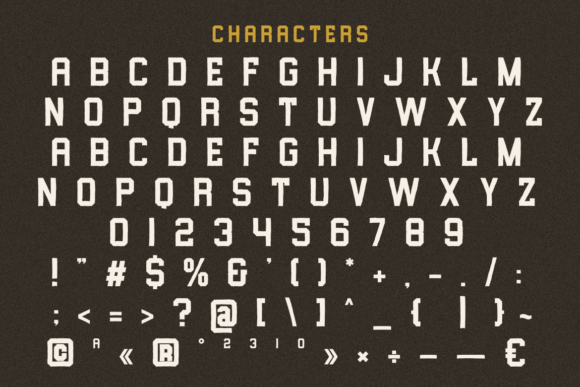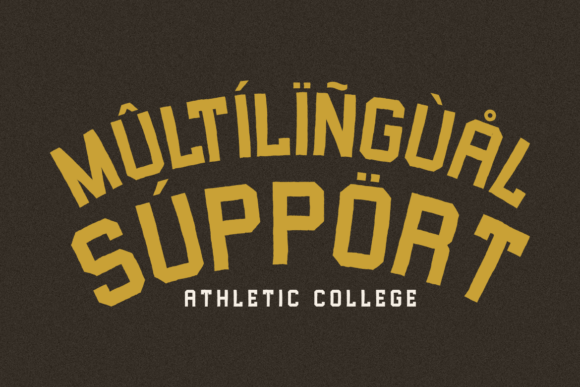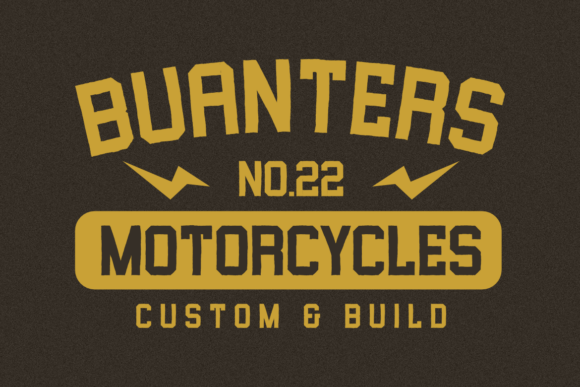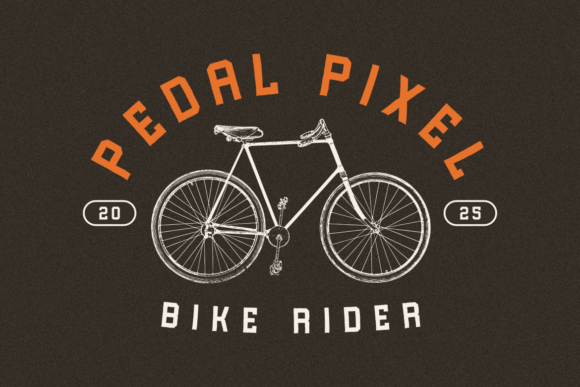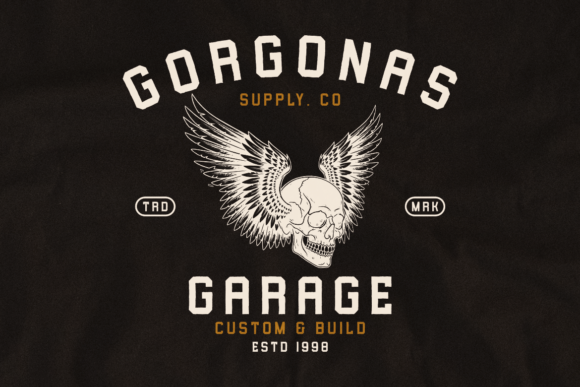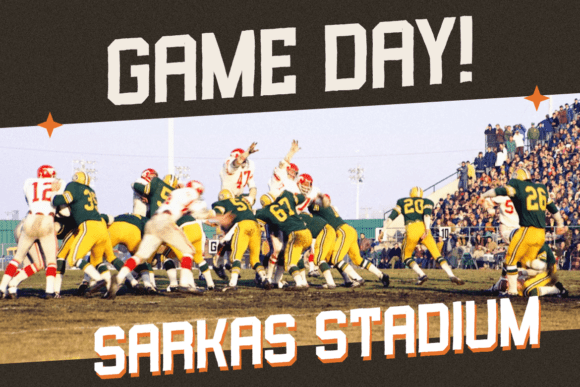
Athletic College Font: Unleash the Power of Vintage Sports Typography
In the world of sports design, typography plays a crucial role in conveying the energy, spirit, and nostalgia associated with athletic teams and events. For designers and crafters seeking to create authentic, vintage-inspired sports-related designs, the Athletic College font is an excellent choice. This robust rough sport font boasts a distinct vintage aesthetic, making it perfect for a wide range of applications, from team merchandise and event posters to retro-inspired logos and more.
The Distinctive Characteristics of Athletic College Font
Athletic College font is characterized by its sturdy, weathered texture and bold presence. The typeface’s rough, worn appearance gives it a timeless, classic feel reminiscent of traditional athletic department logos and collegiate branding. This font’s unique texture and distressed look evoke a sense of nostalgia, transporting designers and their audiences back to a bygone era of sports history.
Key Features and Benefits of Athletic College Font
- Robust and Energetic Design: Athletic College font exudes a powerful and energetic feel, making it perfect for designs that require a strong, dynamic presence.
- Vintage Aesthetic: The font’s vintage-inspired design and distressed texture give it a unique, authentic look that’s ideal for retro-themed sports designs.
- Versatility: Athletic College font is suitable for a wide range of applications, including team merchandise, event posters, logos, and any project requiring a bold, sporty vibe.
- Easy to Read: Despite its distressed texture, the font remains highly legible, ensuring that your designs are both stylish and functional.
Design Applications for Athletic College Font
Athletic College font is incredibly versatile, making it suitable for various design projects. Here are some ideas to get you started:
- Team Merchandise: Create eye-catching apparel, such as t-shirts, hoodies, and hats, with the Athletic College font to give your team’s branding a bold, vintage look.
- Event Posters: Design striking posters for sports events, tournaments, and championships using the Athletic College font to capture the excitement and energy of the competition.
- Retro-Inspired Logos: Develop unique, vintage-style logos for sports teams, clubs, or organizations that evoke a sense of nostalgia and tradition.
- Sports-Themed Graphics: Use the Athletic College font to create engaging graphics for social media, websites, or blogs focused on sports news, analysis, or commentary.
Tips for Working with Athletic College Font
- Pair with Complementary Fonts: Combine the Athletic College font with cleaner, sans-serif fonts to create visual contrast and add depth to your designs.
- Experiment with Colors: Try pairing the font with bold, vibrant colors to amplify its energetic and sporty vibe.
- Play with Texture: Enhance the font’s distressed texture by incorporating additional textures or patterns that complement its vintage aesthetic.
Athletic College font is a powerful tool for designers and crafters seeking to infuse their sports-related designs with a competitive spirit and timeless character. Its unique blend of vintage charm and energetic presence makes it an excellent choice for a wide range of applications. By incorporating the Athletic College font into your design projects, you’ll be able to create authentic, engaging, and memorable sports designs that resonate with audiences of all ages.